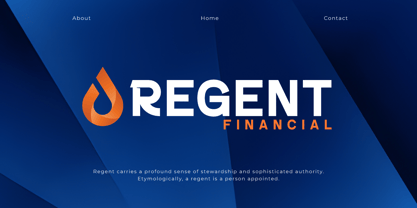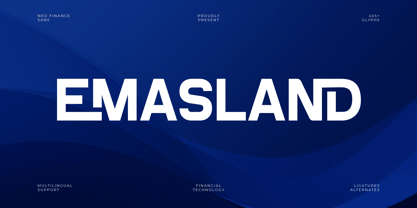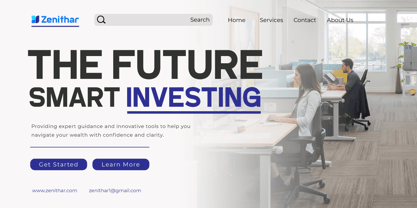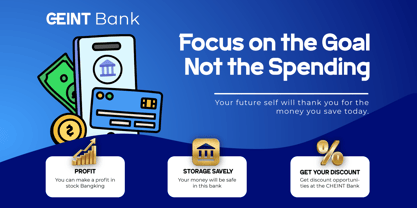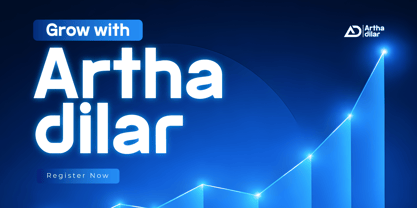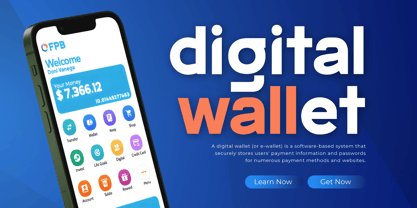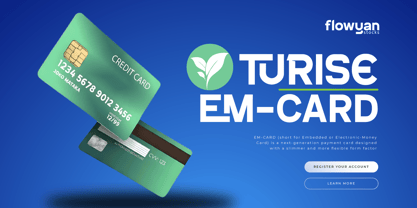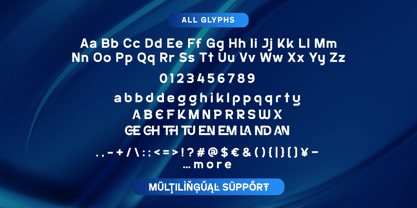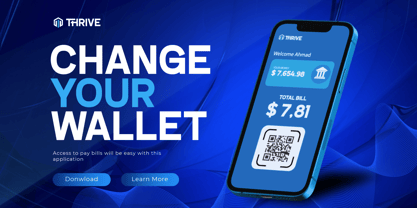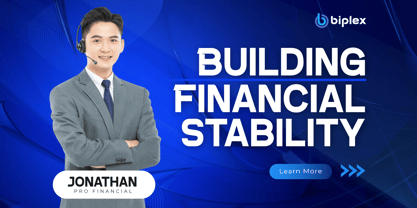
Emasland is a Neo Finance Sans typeface designed to strengthen visual identities within the Fintech and digital banking industries. With a clean and modern geometric structure, this font delivers a professional and premium impression. Its characteristics are ideal for building user trust in a Modern Financial Ecosystem that demands a stable and sophisticated visual appearance.
The font design prioritizes high precision to ensure an optimal Seamless Transaction UI experience on digital devices. Inspired by global banking aesthetics like the Revolut and BCA Digital styles, Emasland offers exceptional readability for dashboard elements, balance figures, and micro-text within applications. Its balanced letter structure helps create a clean, functional, and trustworthy user interface.
As a future-ready financial typography solution, Emasland features 405+ glyphs and stylistic alternates for extensive design flexibility. The font is highly effective for corporate branding, crypto platforms, and virtual debit cards requiring a strong yet minimalist character. Emasland is the perfect choice for designers aiming to bring modern banking visual standards to every digital innovation project.
- All glyphs and Feature
- PUA Encoded: All glyphs are fully accessible without any additional software.
- Multilingual Support: Fully supports 85+ languages, including:
Afrikaans, Albanian, Asu, Basque, Bemba, Bena, Breton, Catalan, Chiga, Cornish, Croatian, Czech, Danish, Dutch, Embu, English, Esperanto, Estonian, Filipino, Finnish, French, Friulian, Galician, Gusii, Hungarian, Indonesian, Irish, Italian, Kabuverdianu, Kalenjin, Kamba, Kikuyu, Kinyarwanda, Latvian, Lithuanian, Lower Sorbian, Luo, Luxembourgish, Luyia, Machame, Makhuwa-Meetto, Makonde, Malagasy, Maltese, Manx, Meru, Morisyen, North Ndebele, Norwegian Bokmål, Norwegian Nynorsk, Nyankole, Oromo, Polish, Portuguese, Quechua, Romanian, Romansh, Rombo, Rundi, Rwa, Samburu, Sango, Sangu, Scottish Gaelic, Sena, Serbian, Shambala, Shona, Slovak, Slovenian, Soga, Somali, Spanish, Swahili, Swedish, Swiss German, Taita, Teso, Turkish, Upper Sorbian, Uzbek (Latin), Volapük, Vunjo, Walser, Zulu.